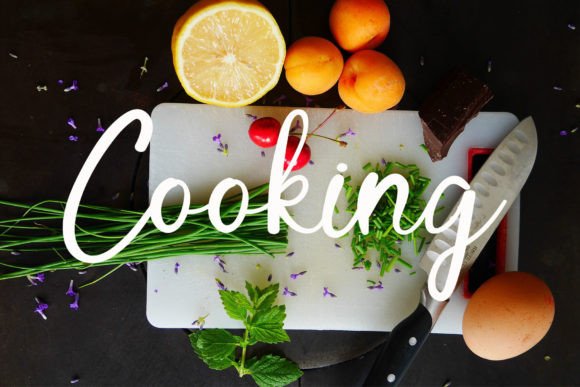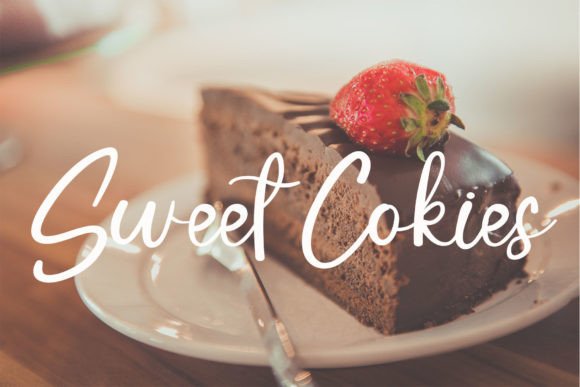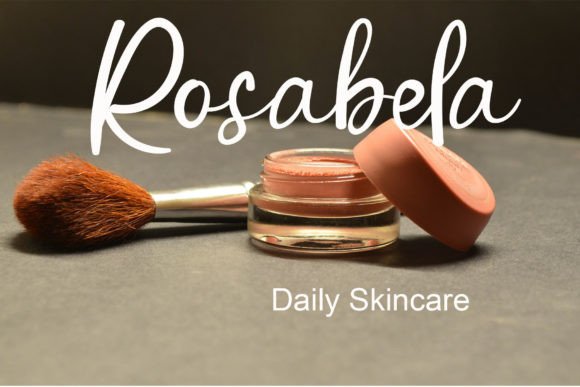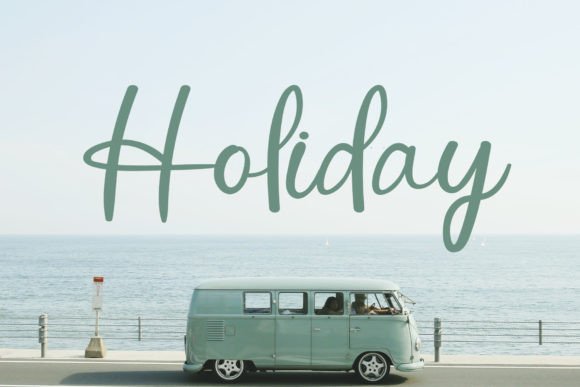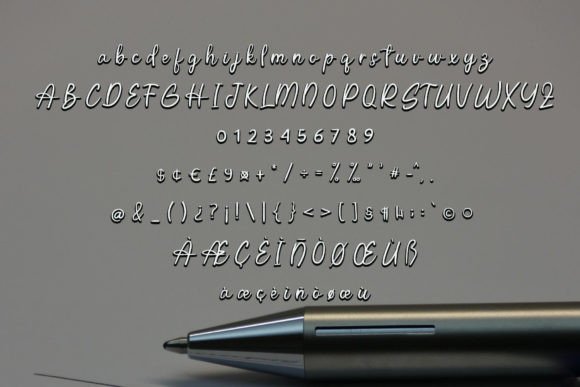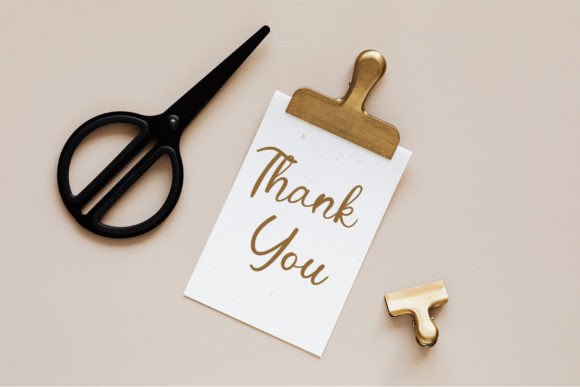
Gnome Christmas Font
About Gnome Christmas Font
Gnome Christmas, a delightful and sweet handwritten script font, brings a touch of charm and warmth to your design endeavors. With its gentle and whimsical style, this font is a perfect choice for a wide range of creative projects, promising to infuse a joyful and romantic ambiance into each design.
This font’s loveliness shines through, making it a versatile option for various design ideas. Whether adorning holiday cards, festive decorations, or seasonal greetings, Gnome Christmas adds a special, heartwarming touch. Its handwritten script style imparts a sense of authenticity, evoking a cozy and welcoming atmosphere that resonates with the spirit of celebration.
The endearing quality of Gnome Christmas makes it suitable for a myriad of applications. From holiday-themed marketing materials to party invitations and social media graphics, this font can effortlessly convey the festive and joyful mood of Christmas. Its versatility extends to both personal and commercial projects, where it can become a key element in capturing the essence of the holiday season.
The gentle curves and sweet strokes of Gnome Christmas make it visually appealing, ensuring that it stands out on various design surfaces. Its ability to evoke a romantic and joyful vibe makes it an excellent choice for expressing sentiments of love and celebration. Whether used on digital platforms or in print, Gnome Christmas brings a touch of magic to every project it graces.
In summary, Gnome Christmas is not just a font; it’s a design asset that encapsulates the festive spirit of Christmas. Its lovely and sweet handwritten script is a perfect companion for those seeking to add a touch of romance and joy to their creative projects, making it a delightful choice for any design idea that aims to capture the heartwarming essence of the holiday season.